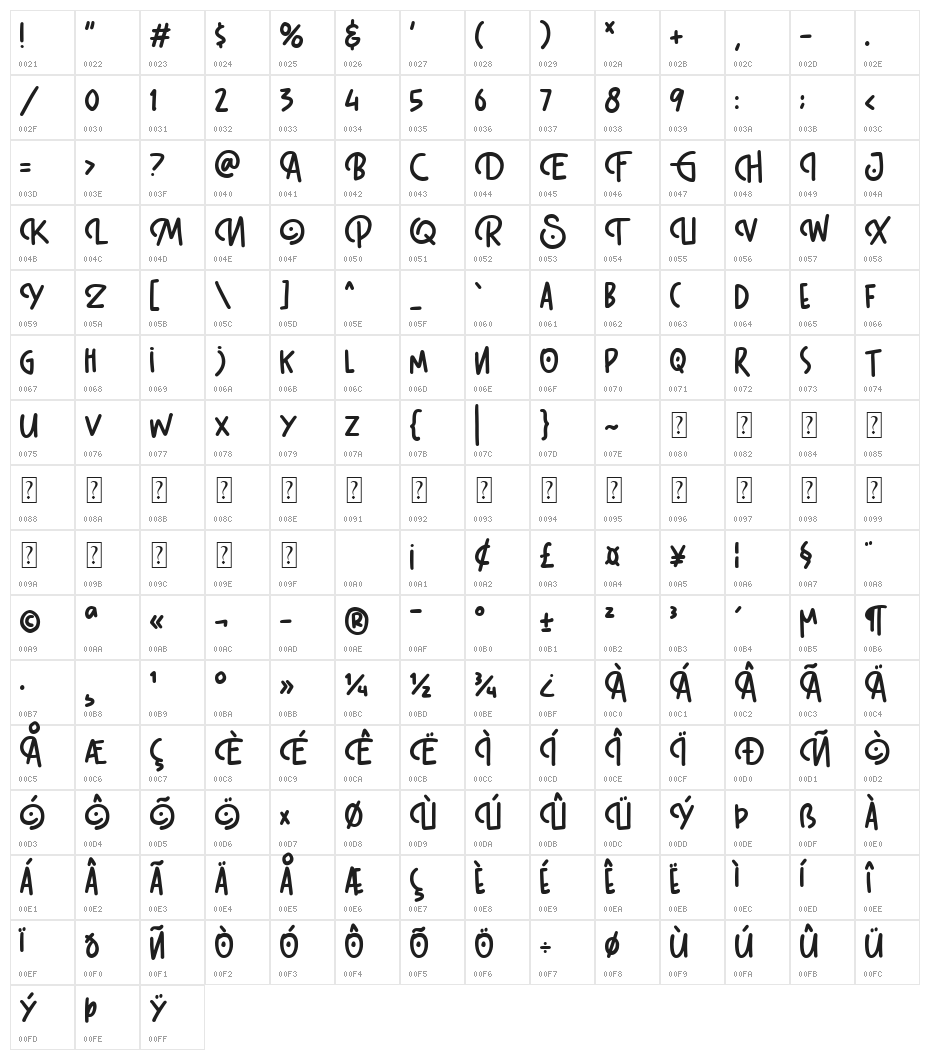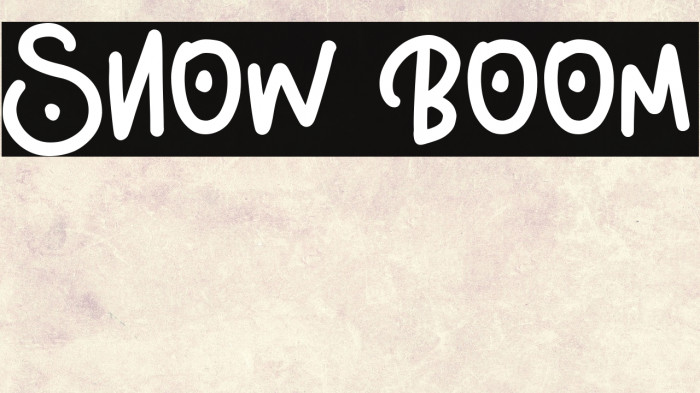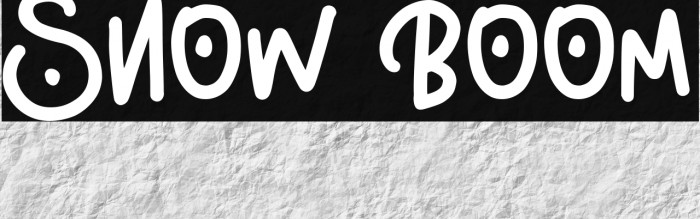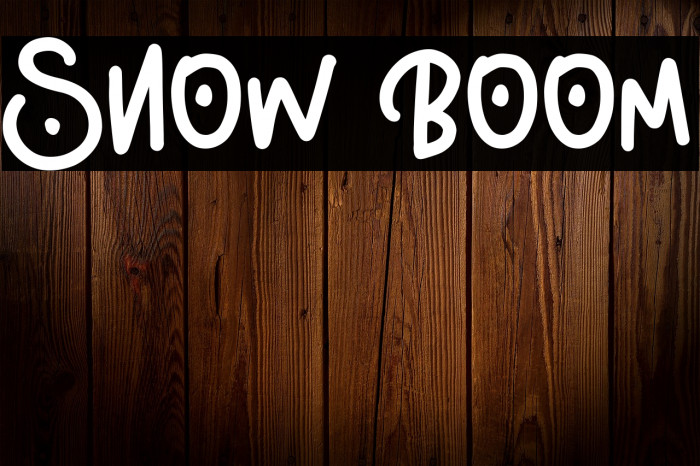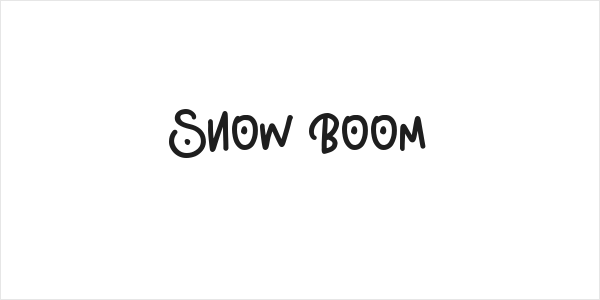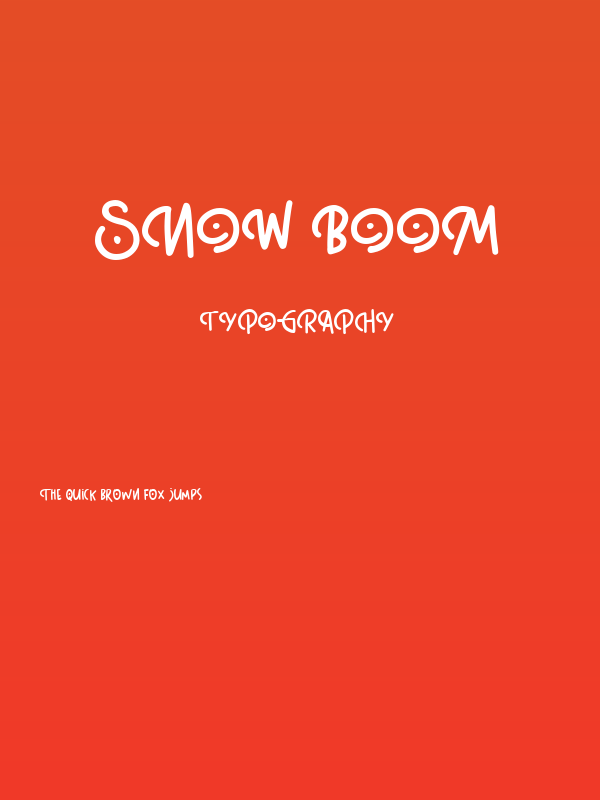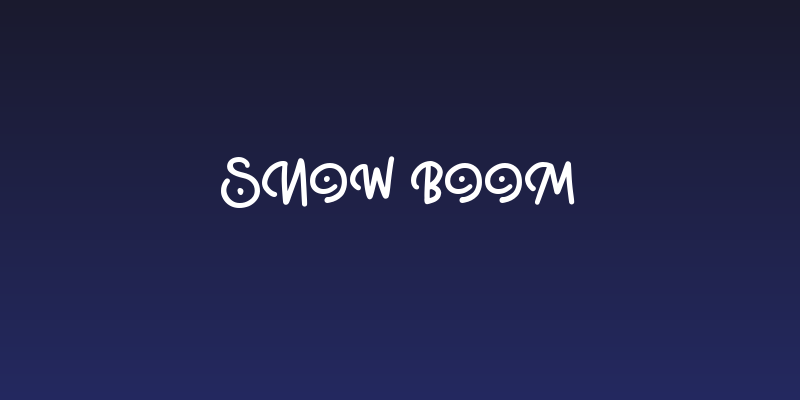
Snow Boom Font
Snow Boom Description
This playful and energetic font features a bold, handwritten style with a touch of whimsy. The characters are rounded and slightly irregular, giving them a casual and friendly appearance. The uppercase and lowercase letters maintain a consistent style, with a few unique flourishes that add character. The numbers and special characters are equally bold and expressive, making them stand out. This font's lively and informal nature makes it ideal for projects that require a fun and approachable look.
| Overall Style | Playful |
| Use Case | Headlines, Logos, Invitations |
| Proposed Projects | Perfect for children's books, playful branding, party invitations, and casual social media graphics. |